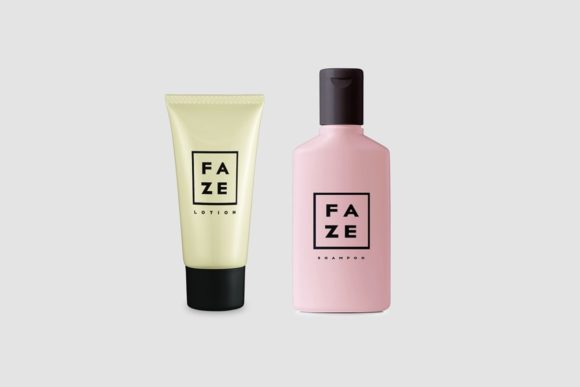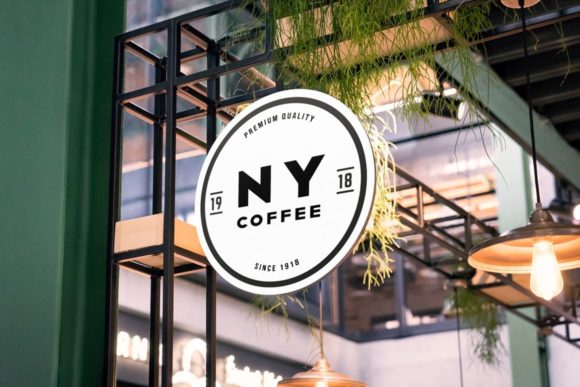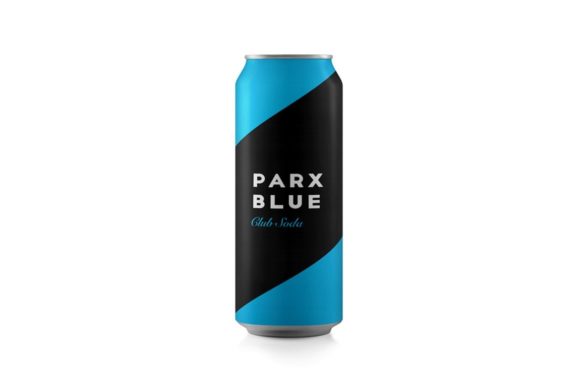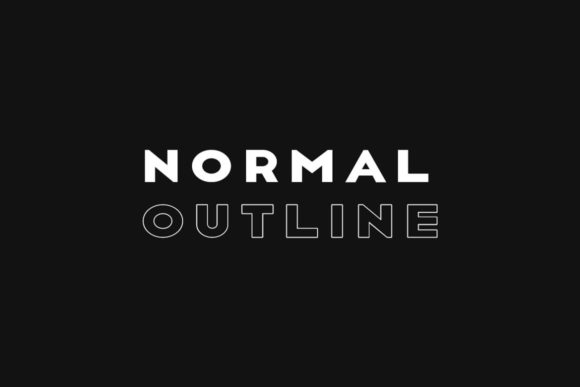
Crux Font: Elevate Your Designs with a Modern and Bold Lettered Display Font
In the world of typography, fonts play a crucial role in conveying messages, expressing emotions, and creating visual identities. For designers, crafters, and creative enthusiasts, finding the right font can make all the difference in bringing their ideas to life. This is where Crux Font comes into play – a modern and bold lettered display font designed to elevate any creation. In this article, we’ll dive into the features, benefits, and uses of Crux Font, exploring how it can become an incredible asset to your font library.
What is Crux Font?
Crux Font is a contemporary and striking display font that can add a touch of sophistication and personality to various design projects. Its modern and bold lettering style makes it perfect for headlines, titles, and short text passages where you want to make a statement. Whether you’re working on a branding project, advertising campaign, or social media graphics, Crux Font is designed to grab attention and leave a lasting impression.
Key Features of Crux Font
- Modern and Bold Design: Crux Font boasts a sleek and contemporary design, making it ideal for projects that require a fresh and edgy look.
- High Versatility: This font can be used across various design projects, from branding and advertising to packaging and digital graphics.
- Excellent Legibility: Despite its bold nature, Crux Font remains highly legible, ensuring that your message is conveyed clearly and effectively.
- Multilingual Support: Crux Font supports multiple languages, making it a great choice for global brands and projects with diverse audiences.
Benefits of Using Crux Font
- Enhance Your Brand’s Visual Identity: With Crux Font, you can create stunning brand assets that reflect your brand’s personality and values.
- Stand Out in a Crowded Market: This font’s unique and bold design helps you differentiate your brand and grab attention in a competitive market.
- Streamline Your Design Process: Having a versatile font like Crux Font in your library saves you time and effort in searching for the perfect font for your projects.
- Elevate Your Creations: Crux Font’s modern and bold style can instantly elevate your designs, making them more engaging and memorable.
Who Can Benefit from Crux Font?
- Graphic Designers: Looking for a modern and bold font to enhance their branding, advertising, and marketing projects.
- Digital Artists: Seeking a font that can add personality and style to their digital art and illustrations.
- Crafters and Makers: Needing a versatile font for their crafting, scrapbooking, and DIY projects.
- Marketing and Advertising Agencies: Requiring a font that can help their clients stand out in a competitive market.
In conclusion, Crux Font is a modern and bold lettered display font that can become a valuable asset to your font library. Its versatility, legibility, and stylish design make it perfect for a wide range of design projects. Whether you’re a designer, crafter, or creative enthusiast, Crux Font can help elevate your creations and make them more engaging and memorable. With its multilingual support and high versatility, this font is sure to become a go-to choice for many design professionals.